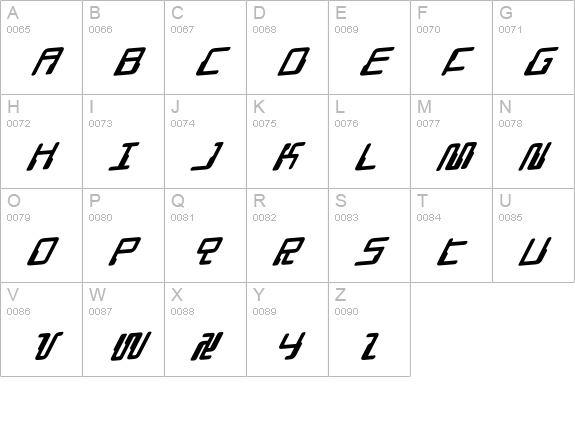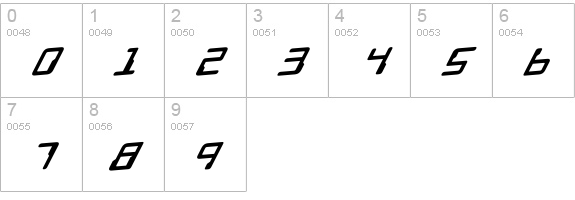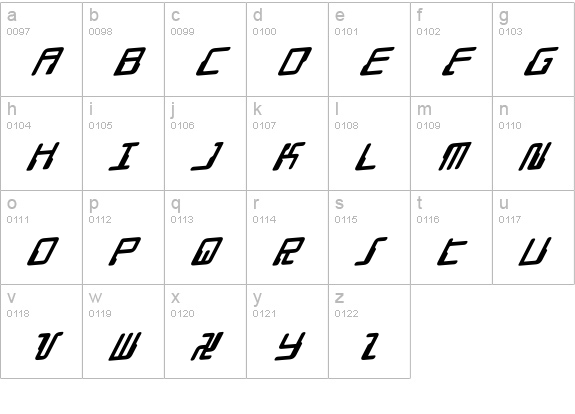
Droid Lover Rotalic font is a stylish and modern typeface that combines futuristic vibes with sleek elegance. Its unique slanted design adds a touch of sophistication to any project, making it perfect for branding, headlines, and logo design. The smooth curves and sharp angles of this font create a dynamic and eye-catching appearance that is sure to make a statement. Best of all, Droid Lover Rotalic font is available for free download at FontsMarket.com. Whether you're a designer looking to add a contemporary edge to your work or a blogger wanting to stand out from the crowd, this font is a versatile choice that will elevate your designs to the next level. Don't miss out on the opportunity to enhance your projects with the captivating Droid Lover Rotalic font – download it for free today!